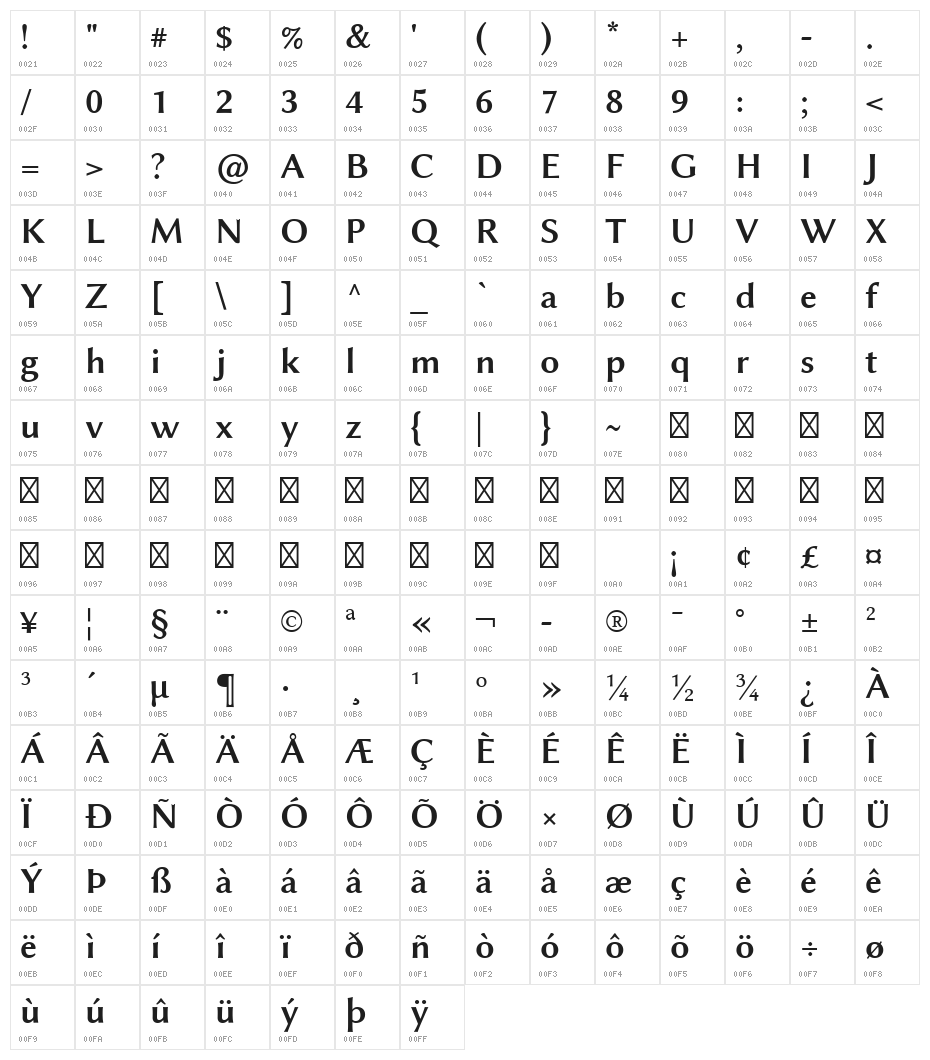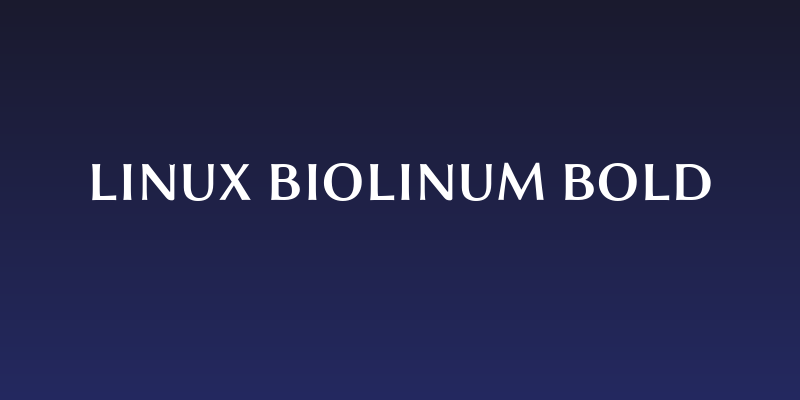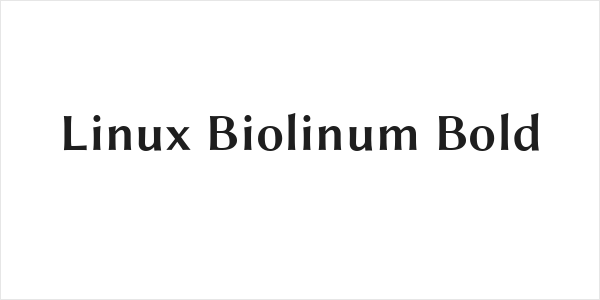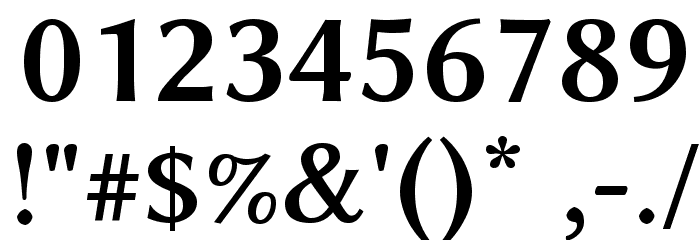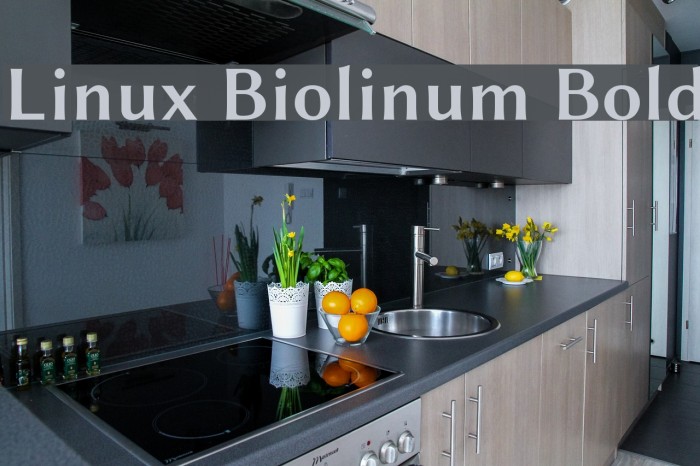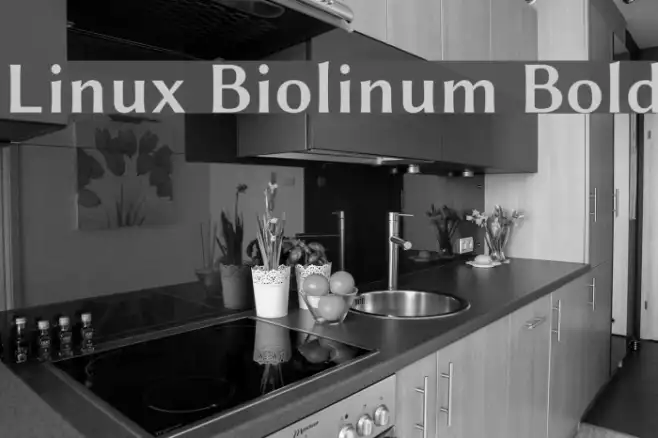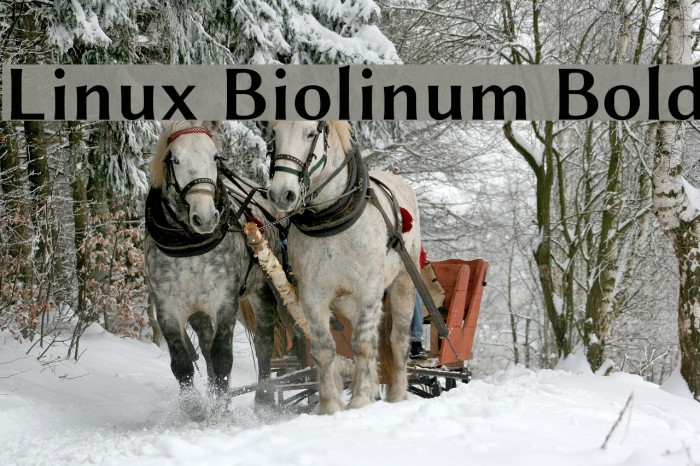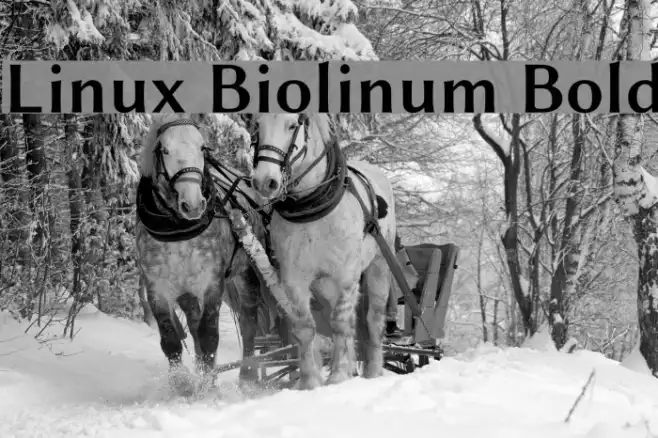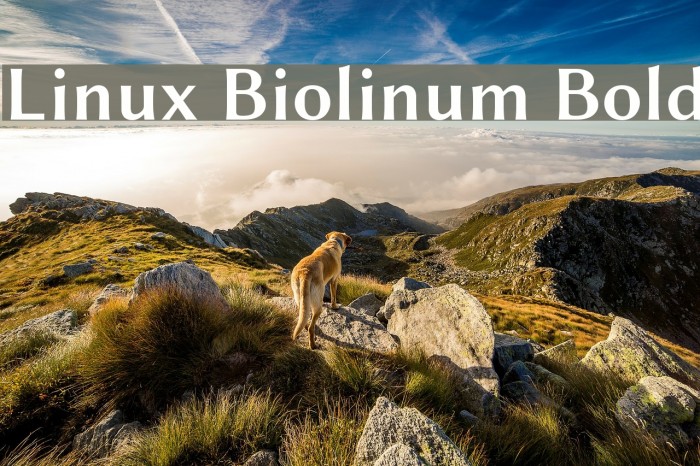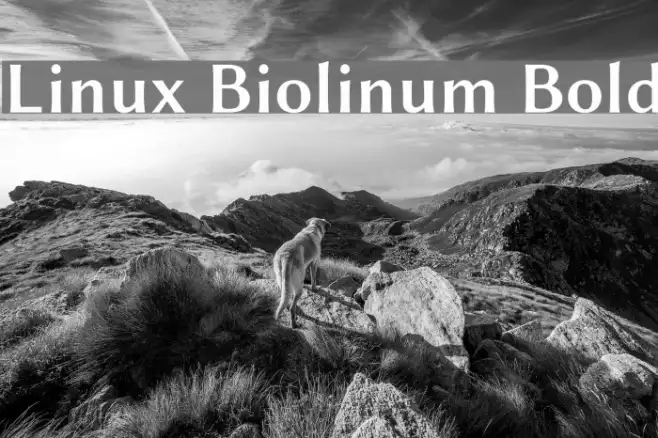
Linux Biolinum Bold Font
Linux Biolinum Bold Description
This font features a clean and elegant design with a modern serif style. The characters are well-defined with a slight contrast in stroke thickness, providing a balanced and readable appearance. The uppercase letters are bold and commanding, while the lowercase letters maintain a consistent and harmonious flow. The numerals are clear and distinct, making them easy to read. Special characters are crafted with precision, adding to the font's versatility. Overall, this font exudes a professional and sophisticated vibe, suitable for a variety of applications.